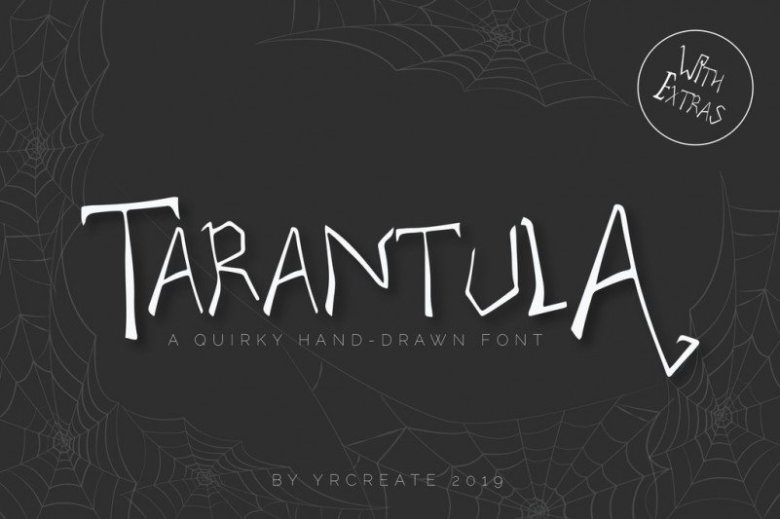
Tarantula Font
Introducing a new font called Tarantula Inspired from creature spider called Tarantula.
Tarantula font best uses for headings, Logo type, quotes, apparel design, invitations, flyer, poster, greeting cards, product packaging, book cover, printed quotes, cover album, movie, etc.